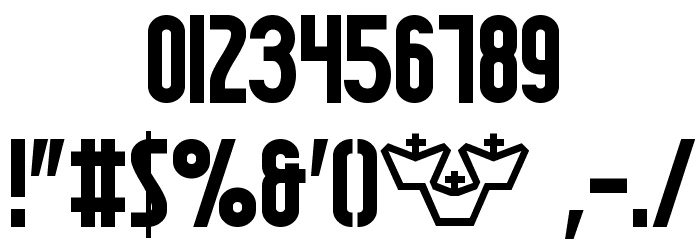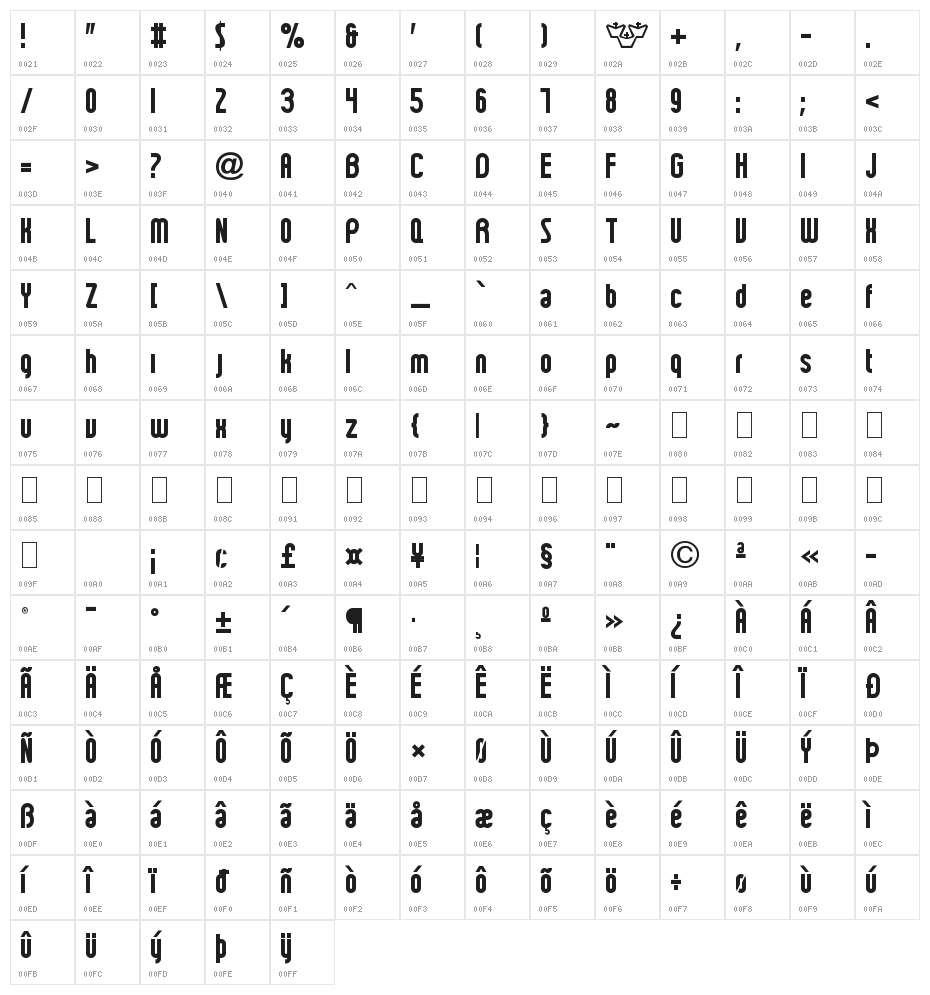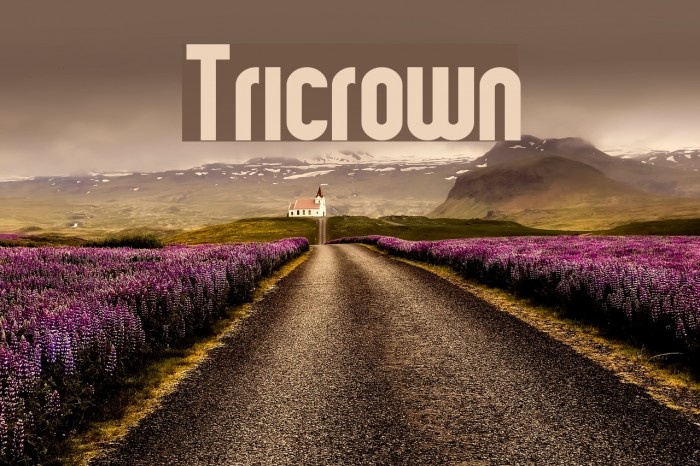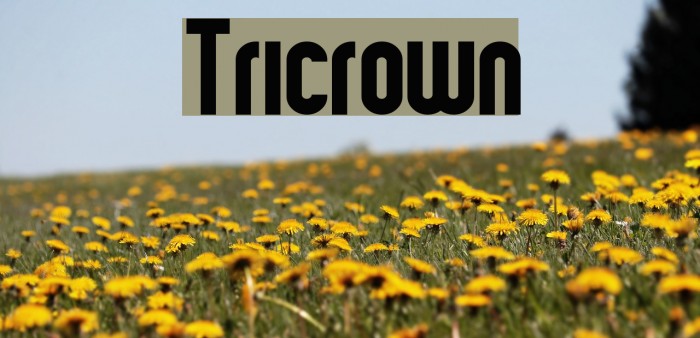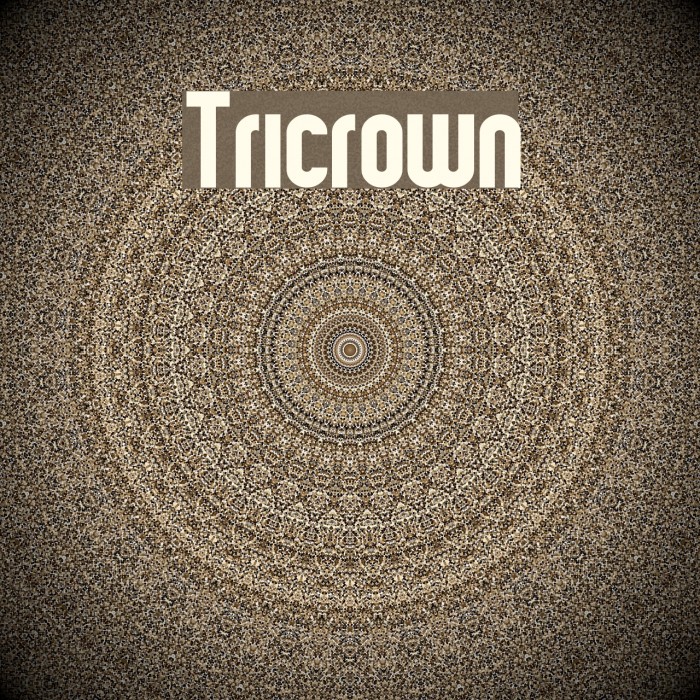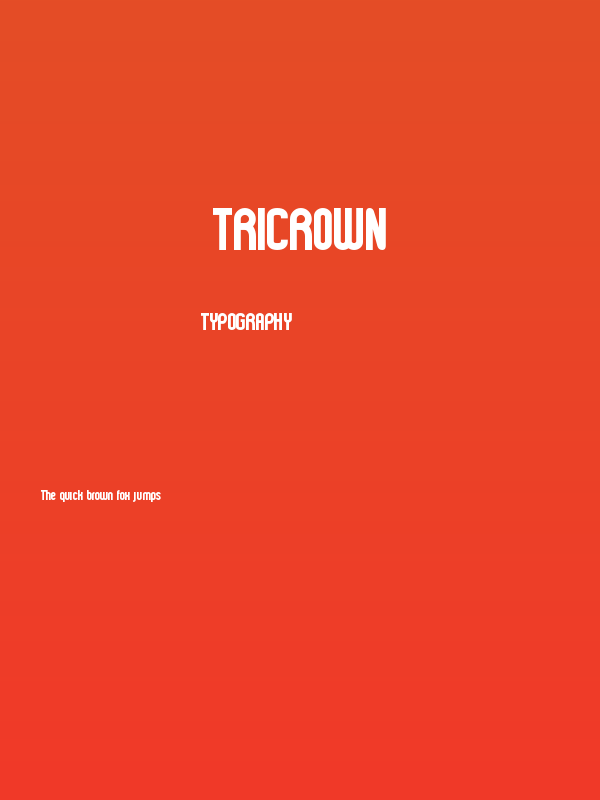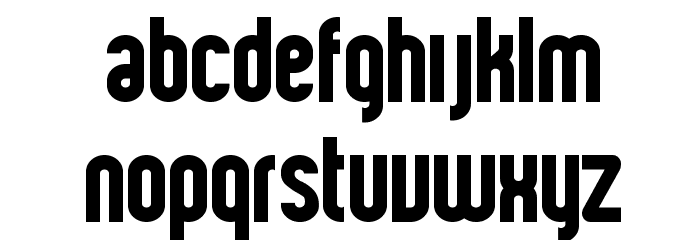
Tricrown Font
Tricrown Description
This font features a bold, geometric design with a modern flair. The characters are constructed with uniform stroke widths, giving it a clean and structured appearance. The uppercase letters are tall and slightly condensed, while the lowercase letters maintain a consistent height, creating a harmonious balance. The numerals are distinct and easily readable, matching the overall aesthetic of the alphabet. Special characters are included, adding versatility to the font. The unique design of the font makes it suitable for a variety of applications, from branding to digital media.